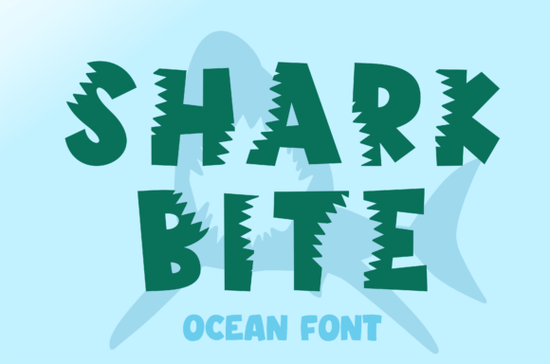
Shark Bite Font is a unique decorative typeface that brings the wild energy of the ocean into your design projects. With its jagged, tooth-like edges and vibrant color options, this font adds a playful yet striking visual element to any artwork. Whether you're working on t-shirts, posters, or kids’ designs, Shark Bite Font offers a bold and dynamic style that stands out.
If you're searching for fonts that combine creativity with functionality, Shark Bite Font is an excellent choice. It’s especially useful for designers and crafters who want to bring a sense of adventure and excitement to their projects. The font's distinctive look can help your designs stand out in a competitive market.
What Makes Shark Bite Font Unique?
Unlike traditional fonts, Shark Bite Font features a decorative style that mimics the sharp, uneven edges of shark teeth. This design choice gives the font a more organic and edgy appearance, making it perfect for themes related to the sea, adventure, or fantasy. The colorful options also allow for greater customization, enabling users to match the font with different color schemes and design styles.
One of the standout features of Shark Bite Font is its ability to add a sense of movement and energy to any layout. Whether used in a logo, a poster, or a social media graphic, the font's bold lines and irregular shapes create a visually engaging experience. This makes it a valuable tool for anyone involved in graphic design, branding, or creative expression.
Best Uses for Shark Bite Font
Shark Bite Font works well in a variety of contexts. For example, it’s great for creating eye-catching t-shirt designs that appeal to both children and adults. Its playful nature also makes it suitable for kids’ books, educational materials, and themed decorations. Additionally, the font’s versatility allows it to be used in digital illustrations, banners, and even packaging designs.
Whether you're a designer, crafter, or small business owner, Shark Bite Font provides a fresh and exciting way to express your ideas. Its combination of style, versatility, and ease of use makes it a valuable addition to any creative toolkit.
Remember, the right font can make a big difference in how your work is perceived. By choosing Shark Bite Font, you're not only adding visual interest but also bringing a sense of adventure and creativity to your designs.
Take some time to explore how this font can enhance your next project. With its bold and dynamic style, it’s sure to make a lasting impression.